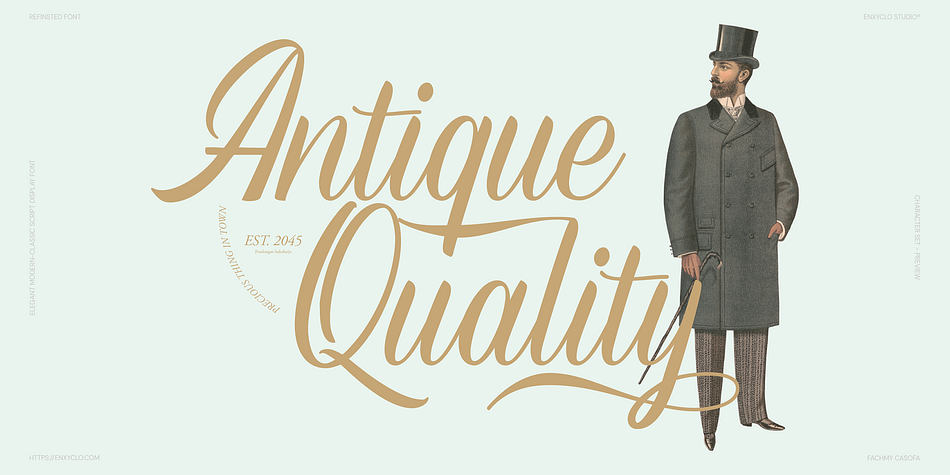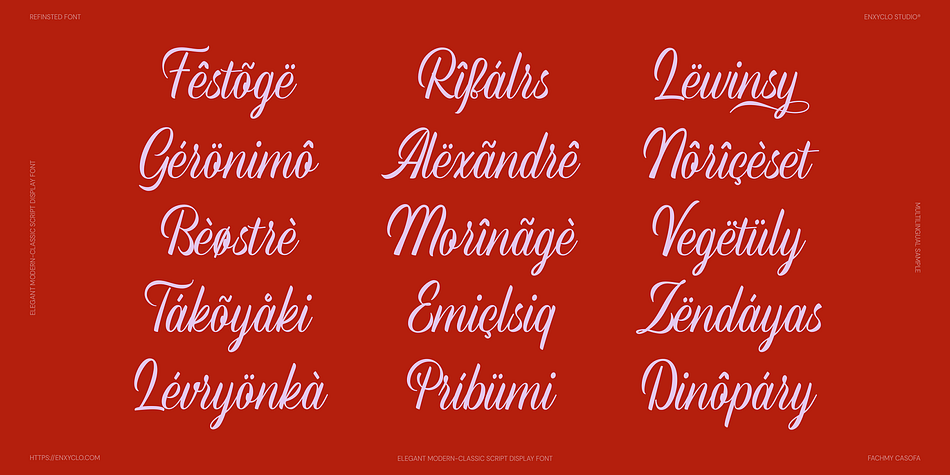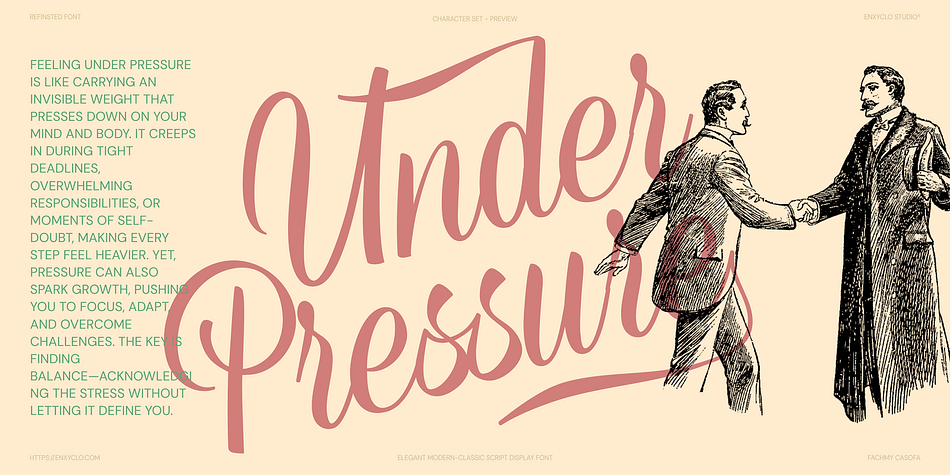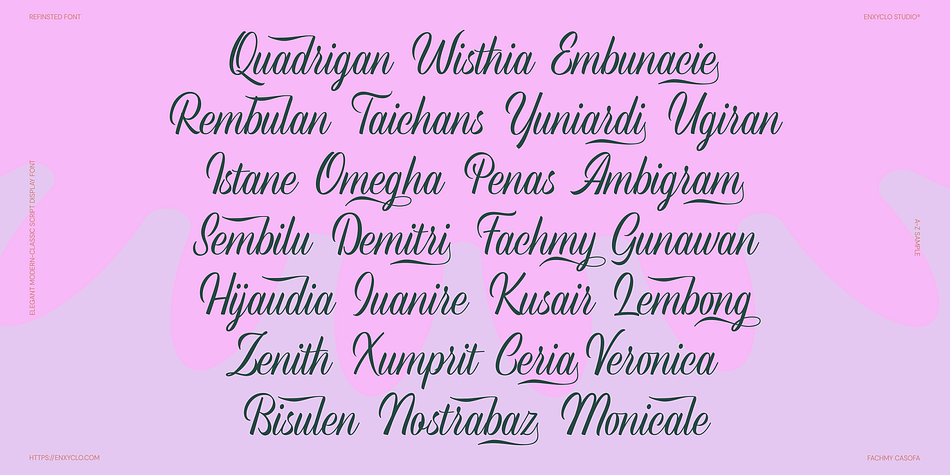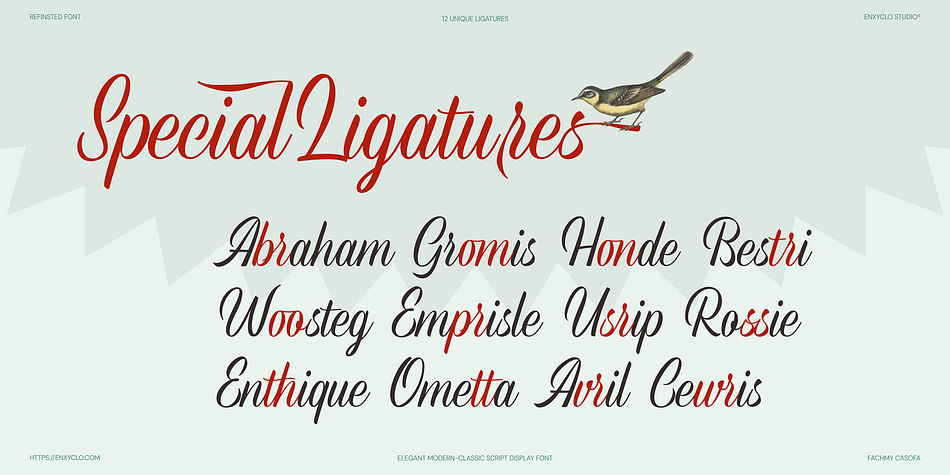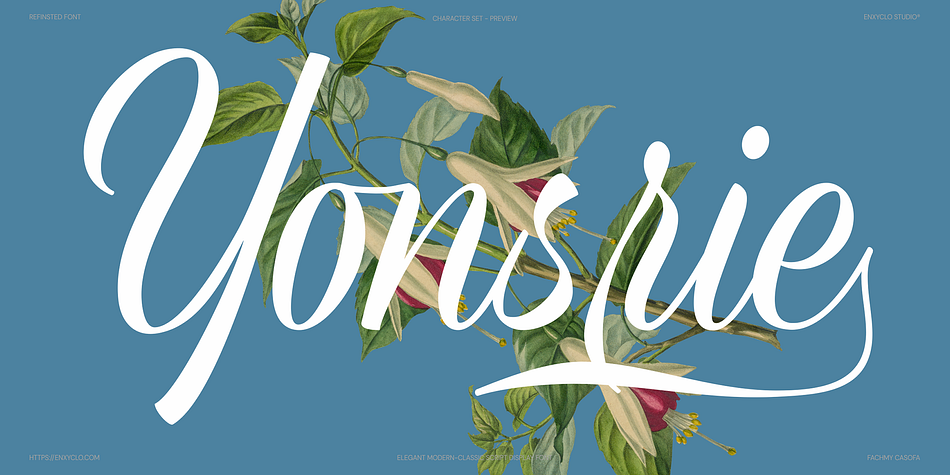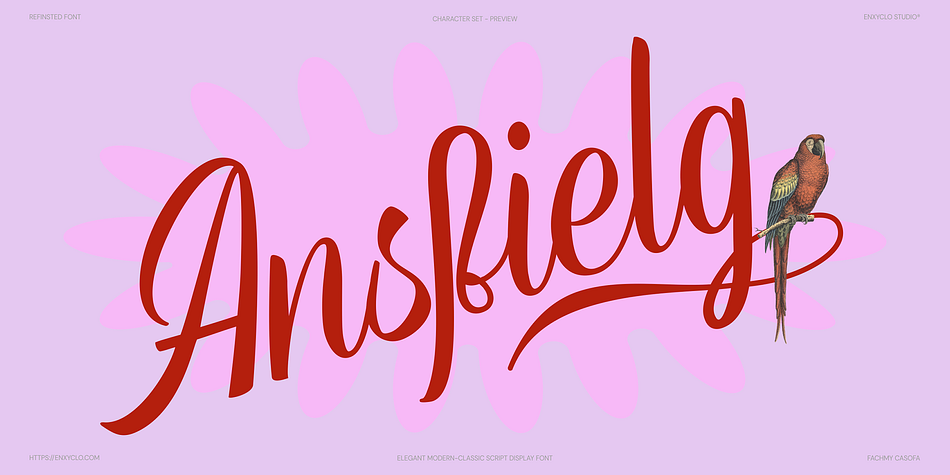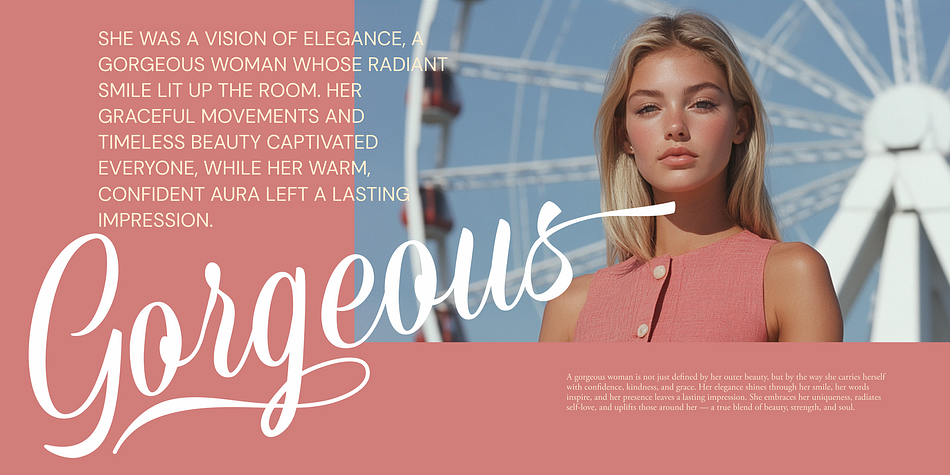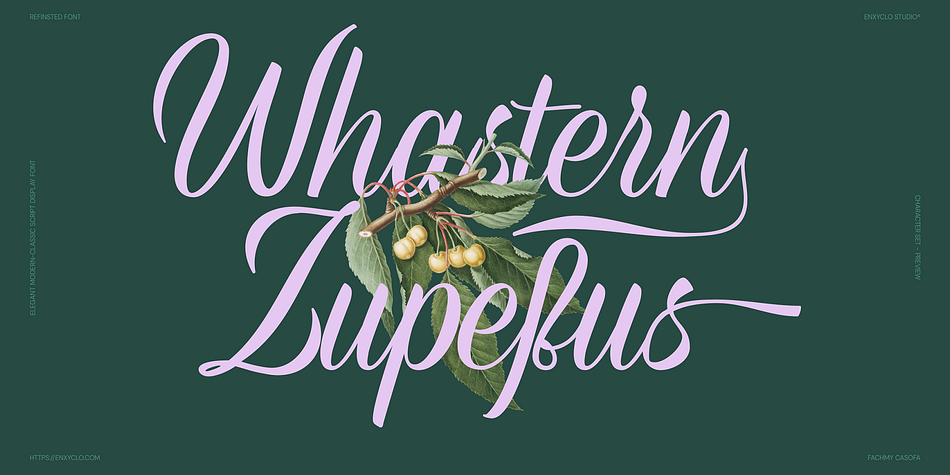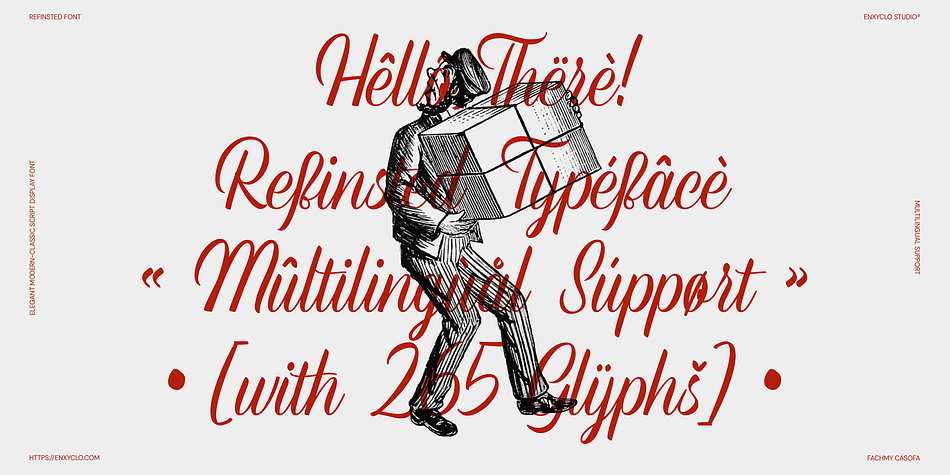
Refinsted
Designed by Fahmi Mubarok, Refinsted is a script font family published by Enxyclo Studio.
Refinsted is a sophisticated script display font that blends modern elegance with classic charm. Designed with precision and passion by Enxyclo Studio, this typeface exudes luxury, fluidity, and timeless beauty—perfect for branding, packaging, editorials, invitations, and high-end projects. Its graceful letterforms flow smoothly, creating an impression of refinement and artistry in every stroke. Whether you’re designing a logo, wedding stationery, or an inspirational poster, Refinsted adds a touch of class and distinction that sets your work apart. Ideal for those who seek both sophistication and flexibility in their typography toolkit.
FEATURES
-  265 Unique Glyphs
-  Stylistic Set 1-3
-  12 Special Ligatures
-  Uppercase & Lowercase
-  Numeral, Punctuation & Symbols
-  Multilingual Support
Make your words bounce with personality— Refinsted Font is here to play!